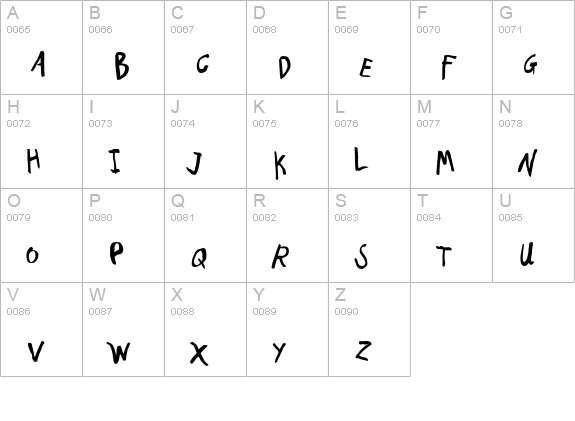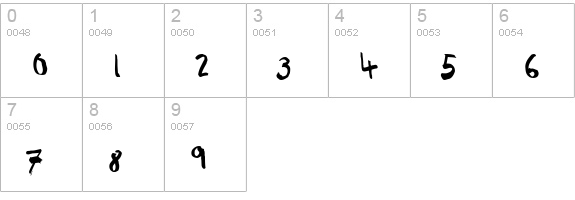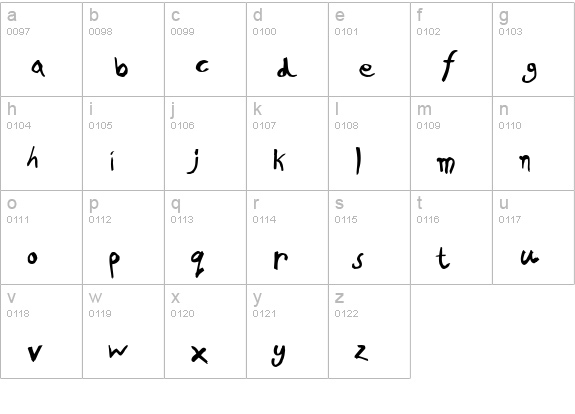
PFKids AgeEight is a whimsical and playful font that captures the essence of childhood innocence and creativity. Designed with a hand-drawn style, this font exudes a sense of fun and spontaneity, making it perfect for projects aimed at children and families. The irregular shapes and quirky details give PFKids AgeEight a unique charm that will bring a touch of joy to any design. What sets PFKids AgeEight apart is that it is freely available to download at FontsMarket.com, allowing designers and creators to access this delightful font without any cost. Whether you're working on a school project, children's book, or any other creative endeavor, PFKids AgeEight offers a vibrant and engaging option to bring your ideas to life. Embrace the cheerful spirit of childhood with PFKids AgeEight and let your imagination soar.